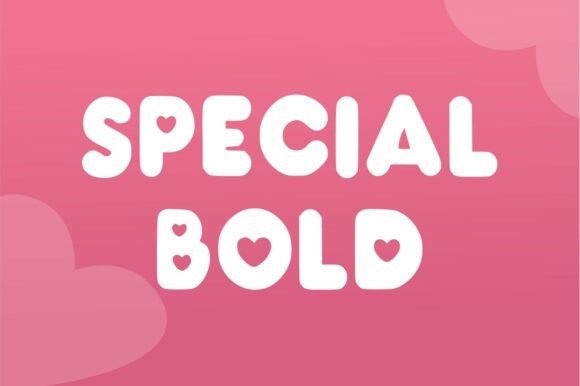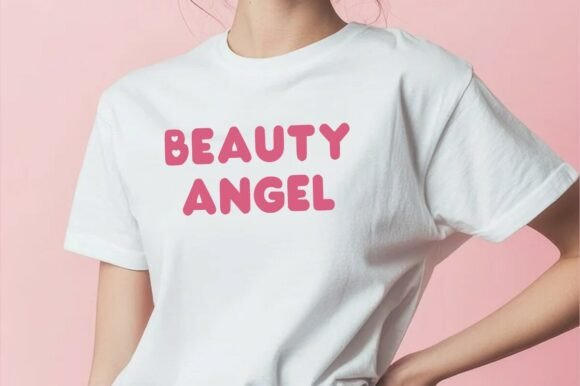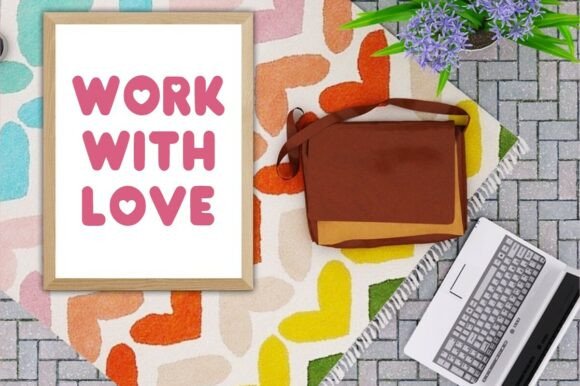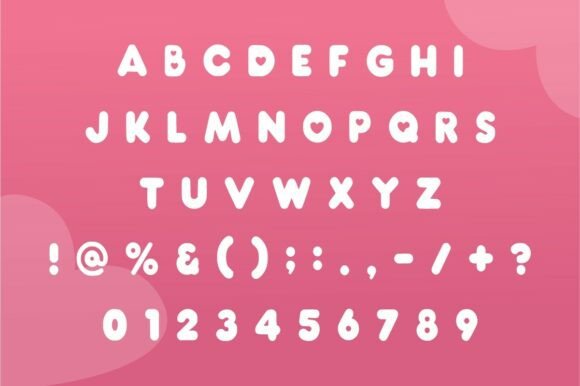
Introduction to Loved Chunky Font
Loved Chunky is a fun and romantic display font.
Warm, romantic and jolly, this font will turn each of your project ideas into real works of art Have fun with this beautiful font and explore its endless variations.